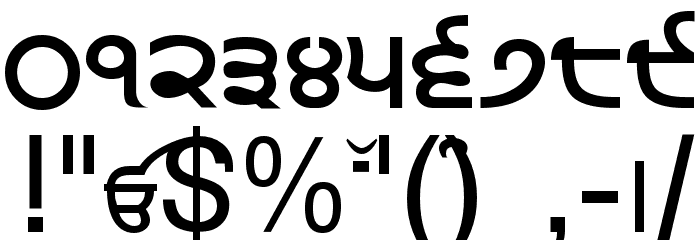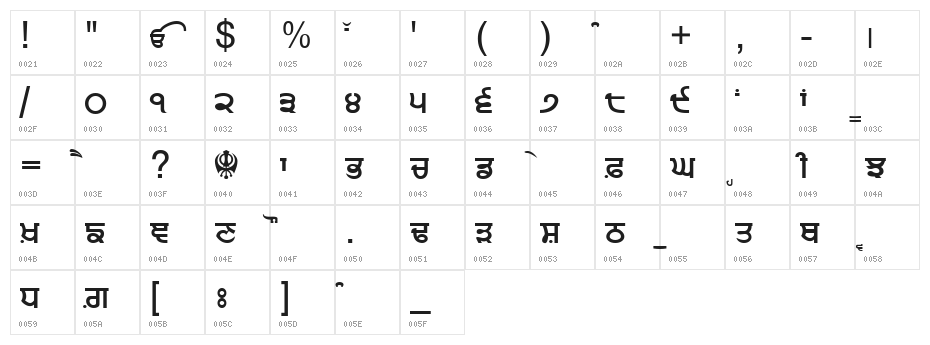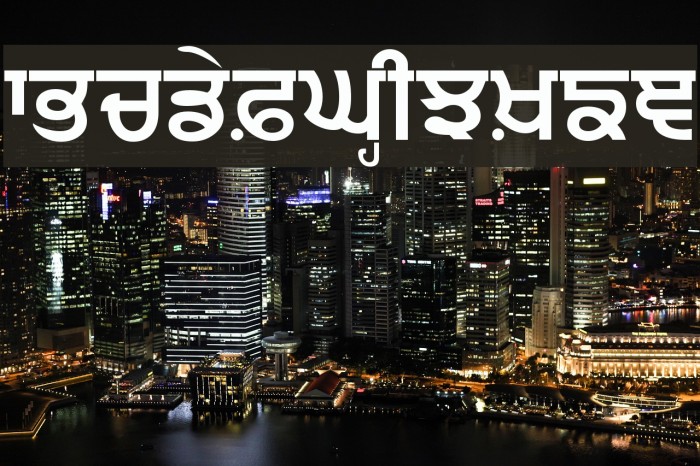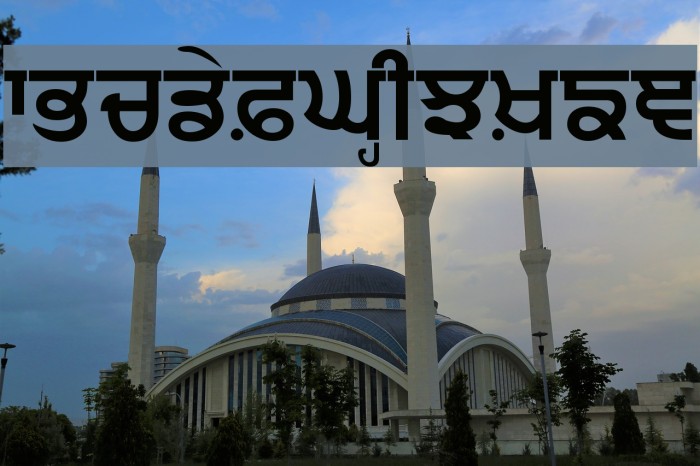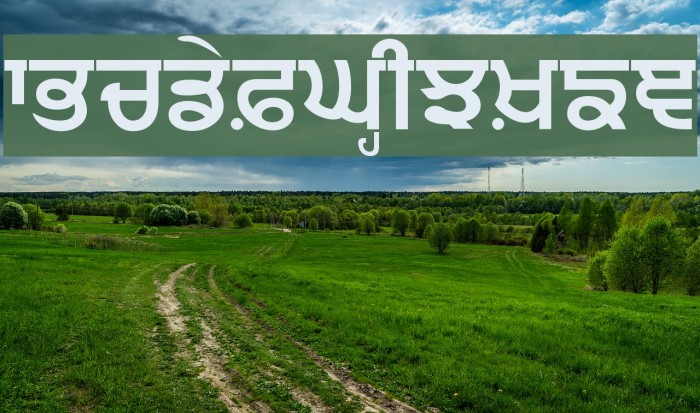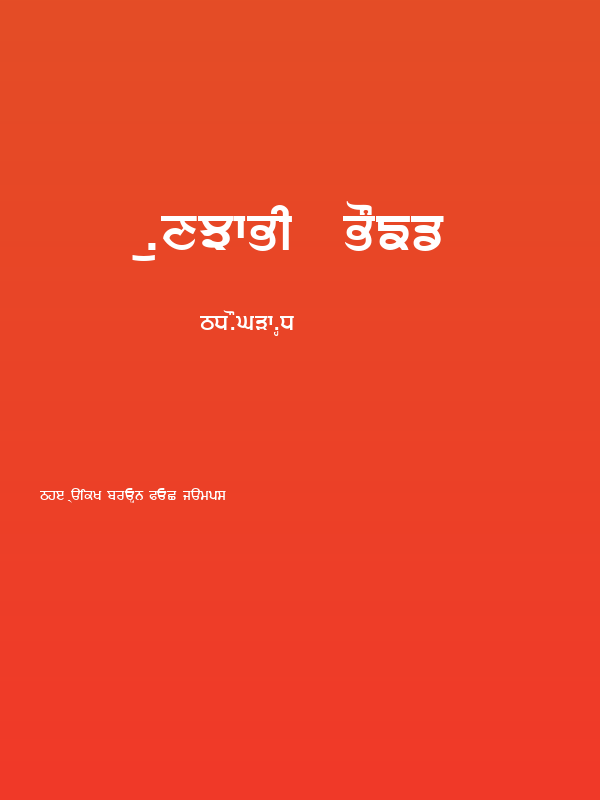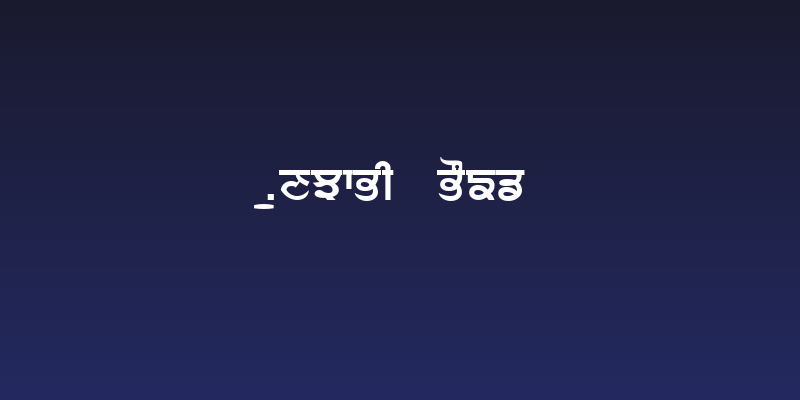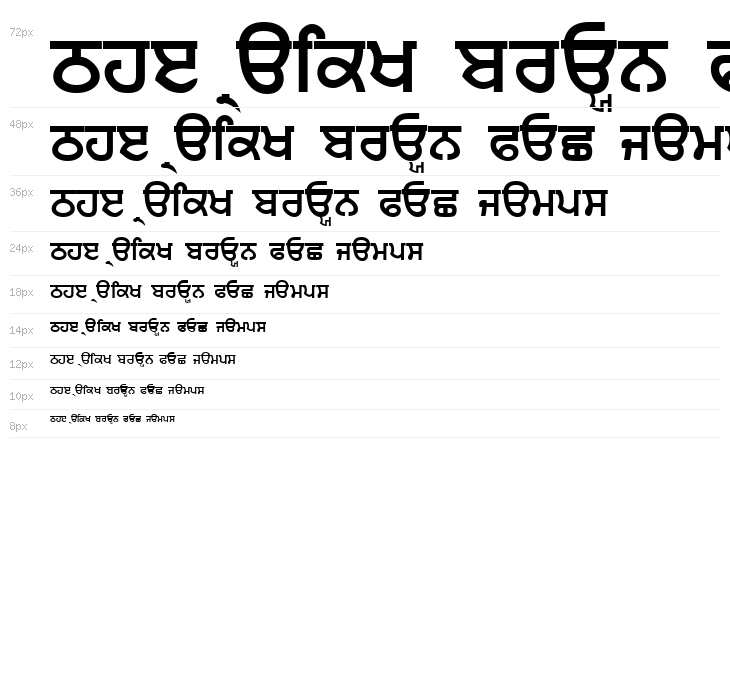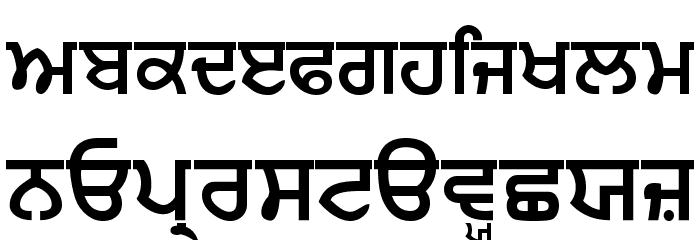
Punjabi Bold Font
Punjabi Bold Description
This font features bold, geometric shapes with a strong presence, characterized by its thick strokes and clean lines. The characters are well-defined, offering a modern and assertive look. The font is highly legible, making it suitable for various applications where clarity and impact are essential. Its boldness is complemented by a balanced structure, ensuring that each character stands out distinctly. The font includes a full set of Punjabi characters, numerals, and a variety of punctuation marks, making it versatile for multilingual projects.